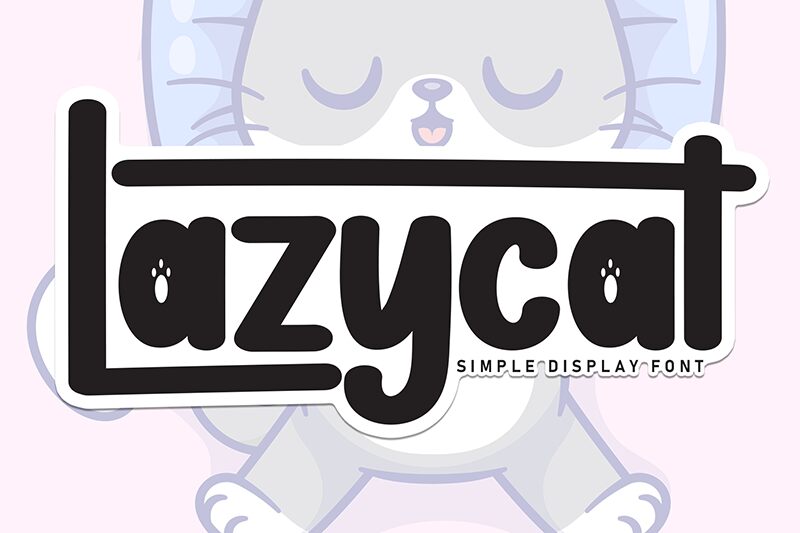
Lazycat
Lazycat font by Scratchones is a modern handwritten font with an approachable look. The letters appear rounded and casual with youthful charm. With its condensed width, this friendly typeface will give a unique appearance to each of your designs.
Among use cases that benefit are product packaging, labels, social media posts, advertisements, book covers, t-shirts, headings of all sorts.